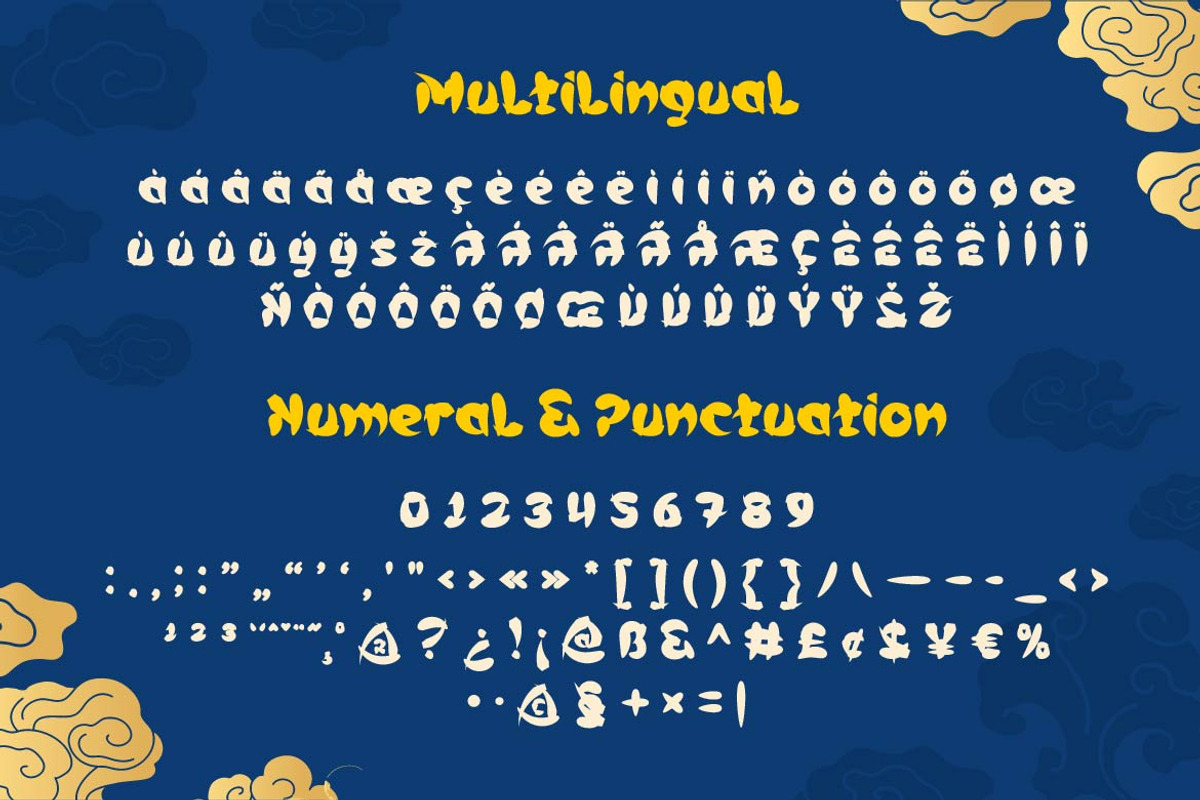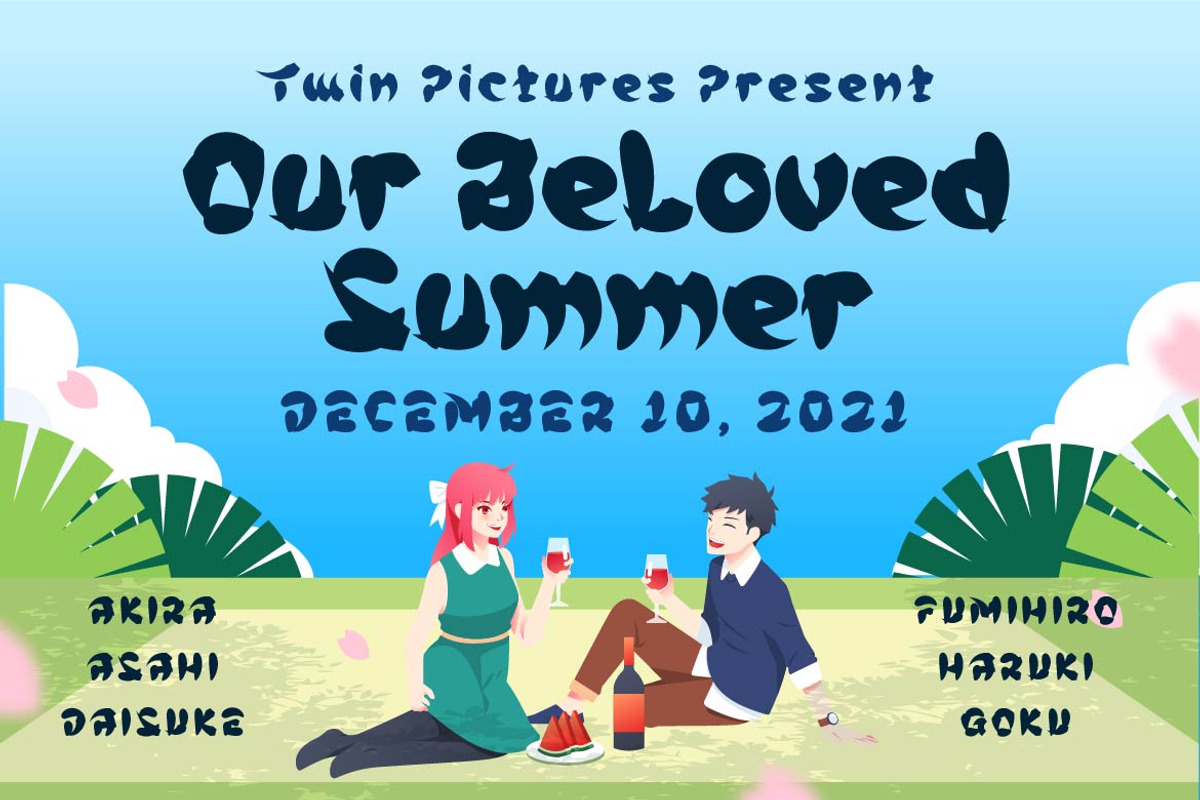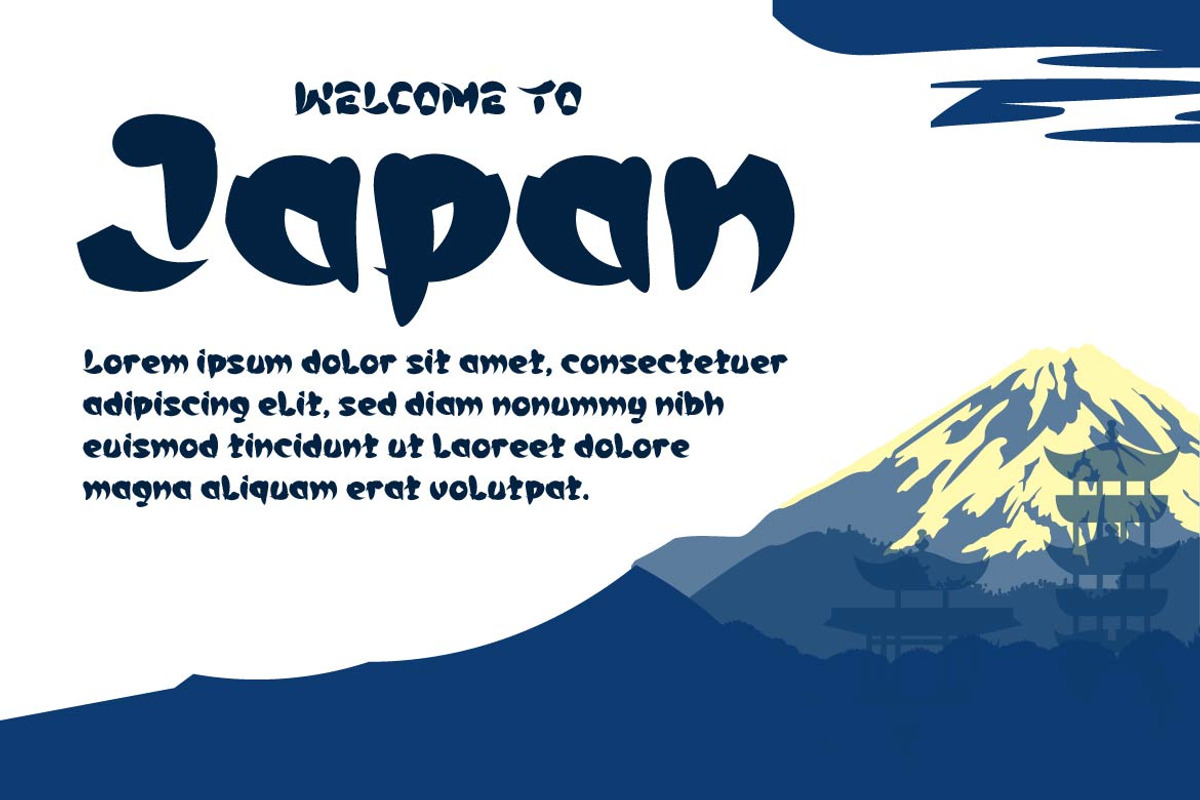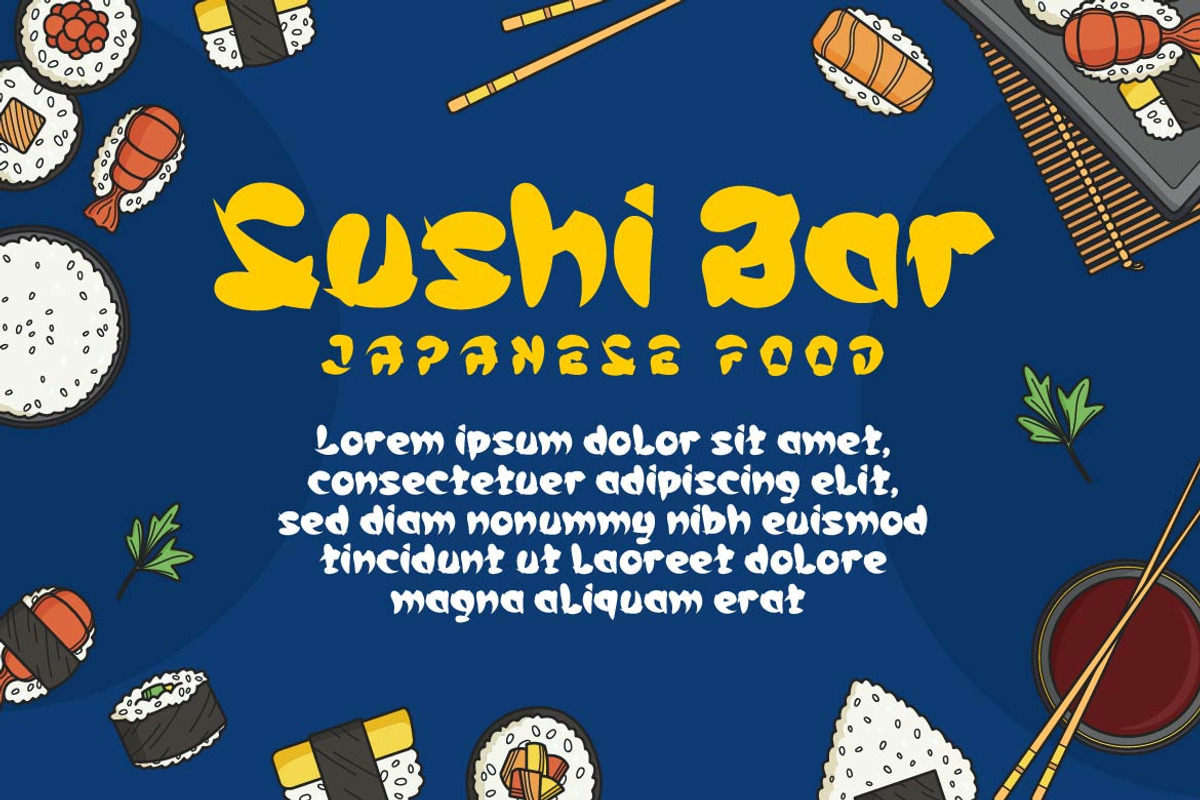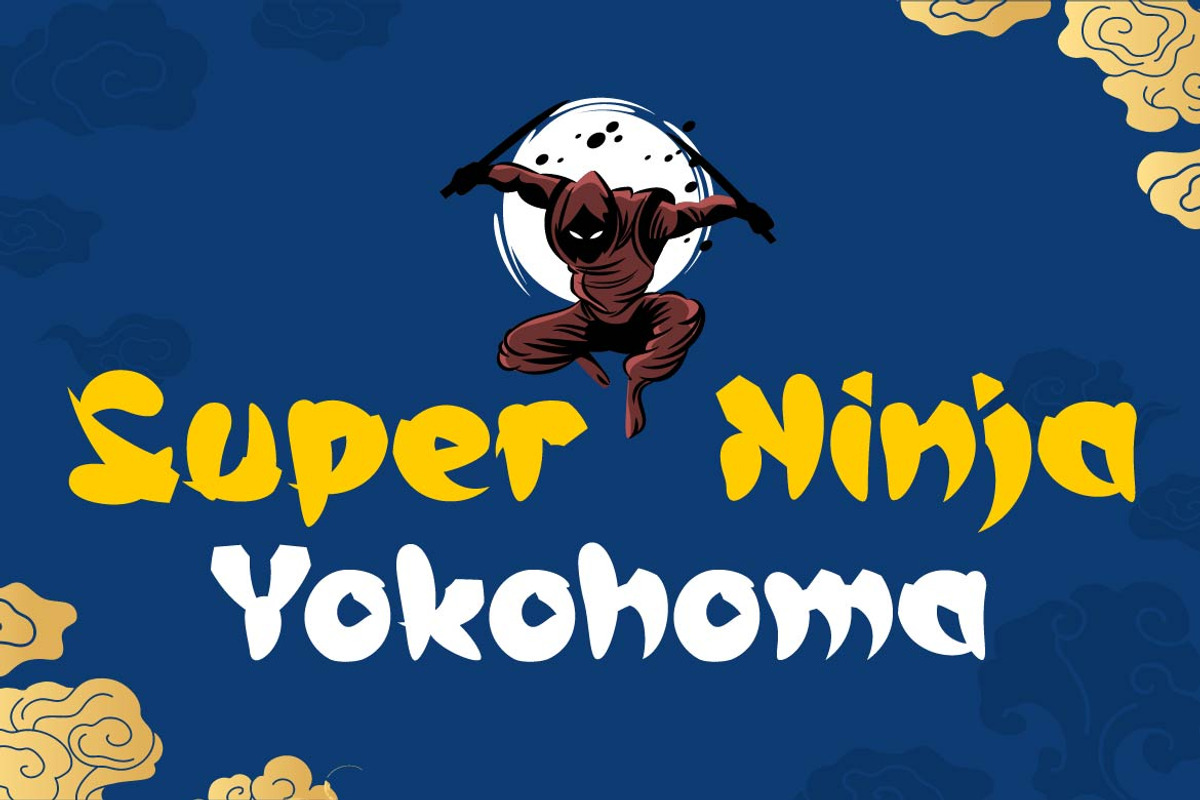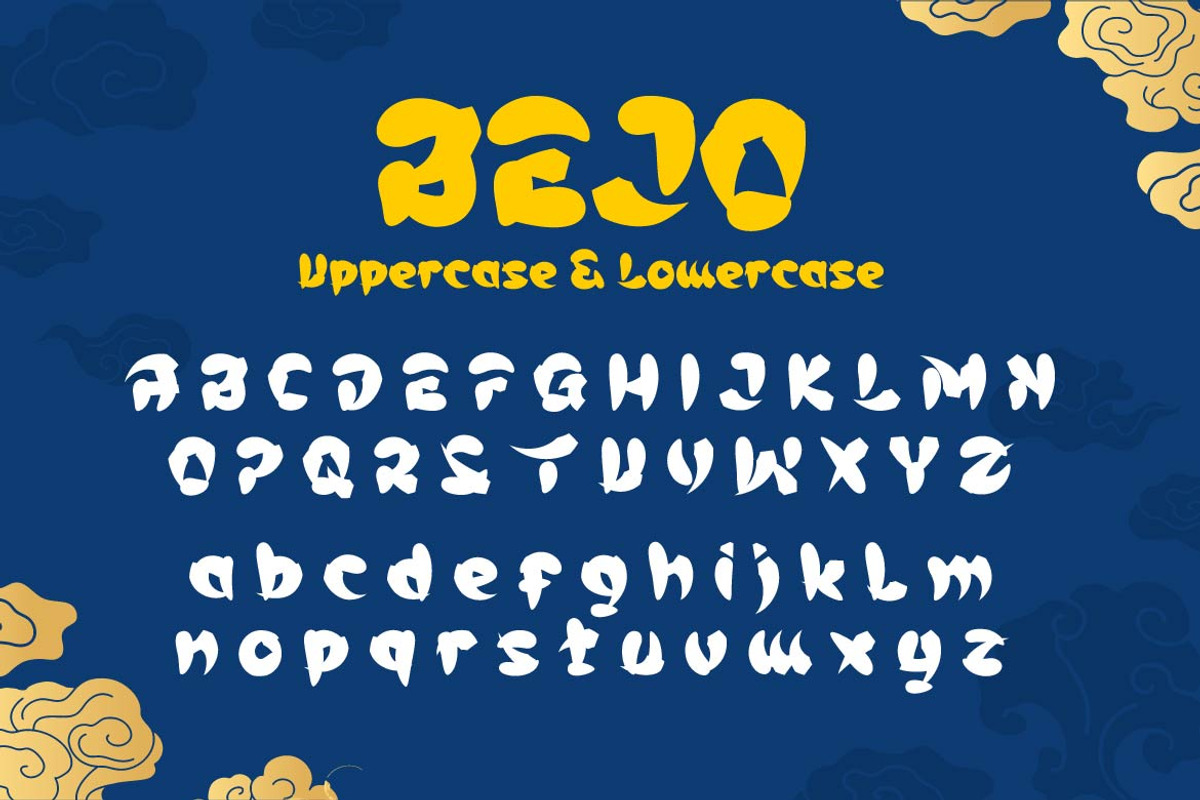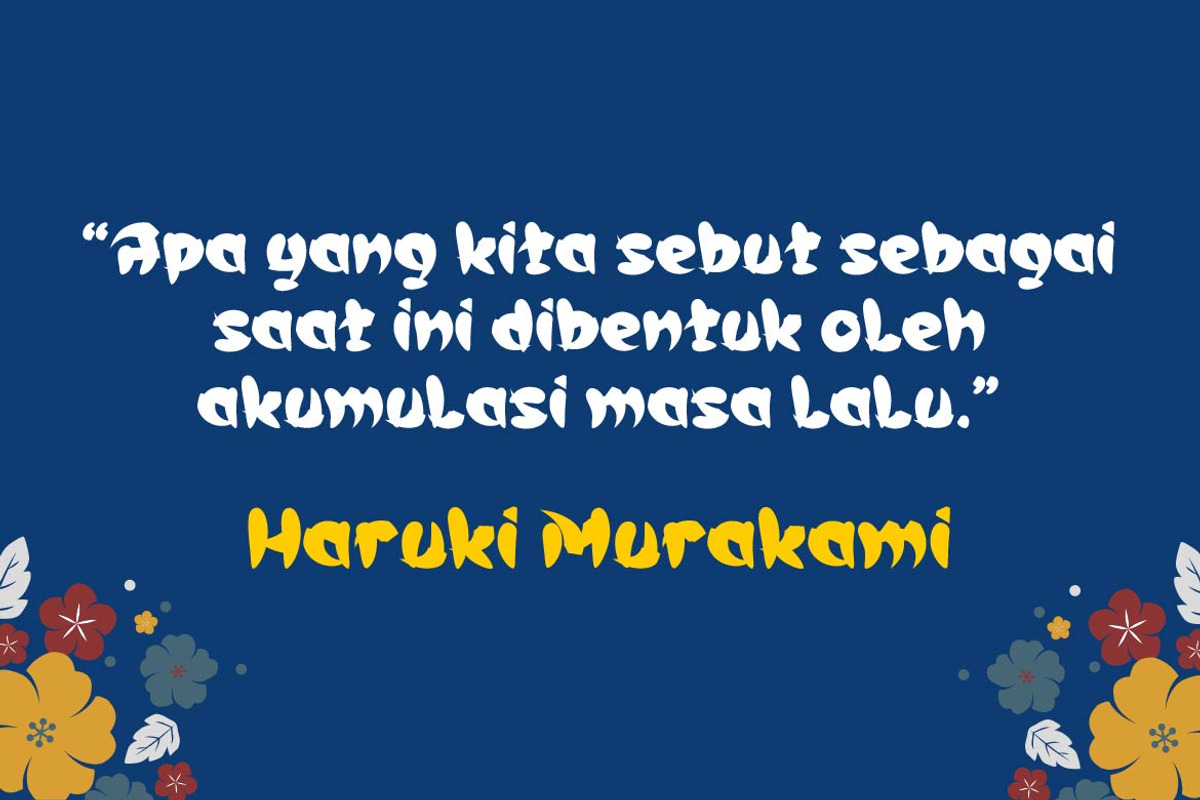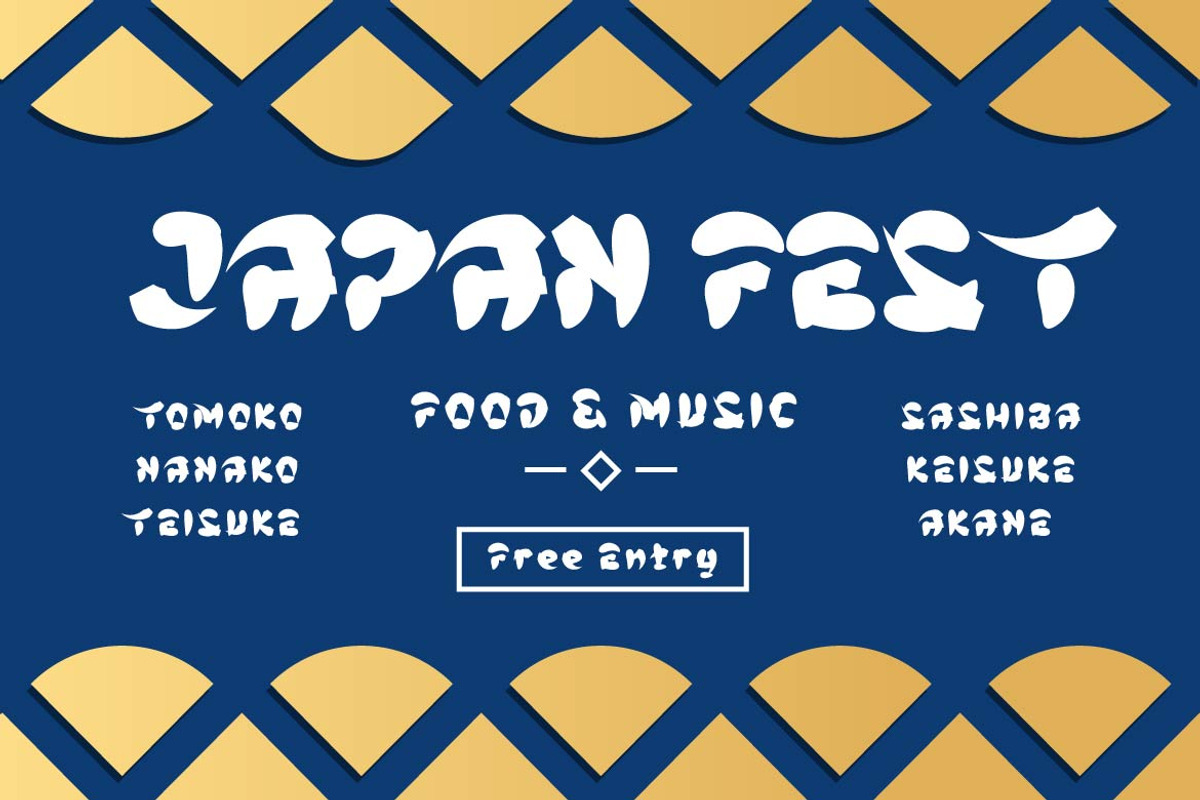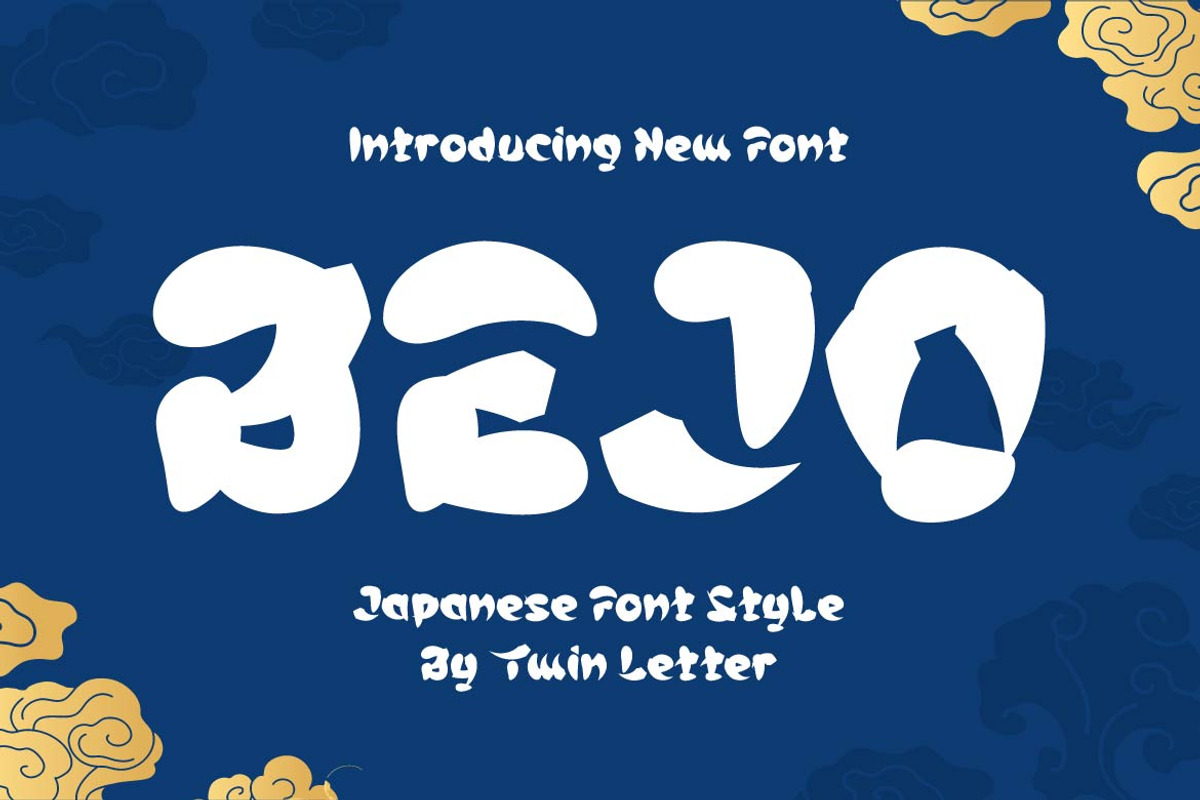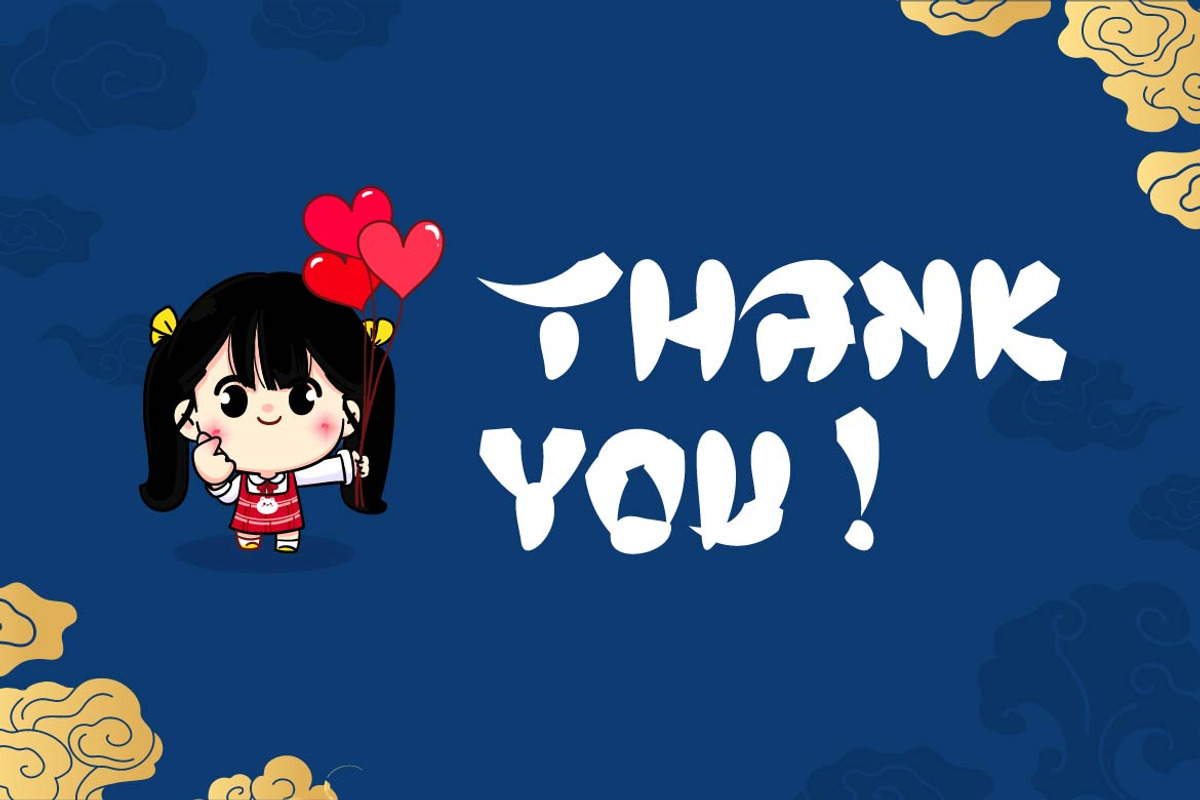
BEJO - Japanese style font
BEJO is a display font in the Japanese style, with each letter having its own individual personality. This font is appropriate for a wide range of project demands, particularly those involving Asian features. By utilizing this typeface, you will create a project with a gorgeous, original, and elegant appearance that will be remembered by many people.
Logotypes, food banners, branding, brochure, posters, movie titles, book titles, quotes, and more may all benefit from this font.
Of course, using this font in your various design projects will make them excellent and outstanding; many viewers are drawn to the striking and unusual graphic display.
Start utilizing this typeface in your projects to make them stand out.